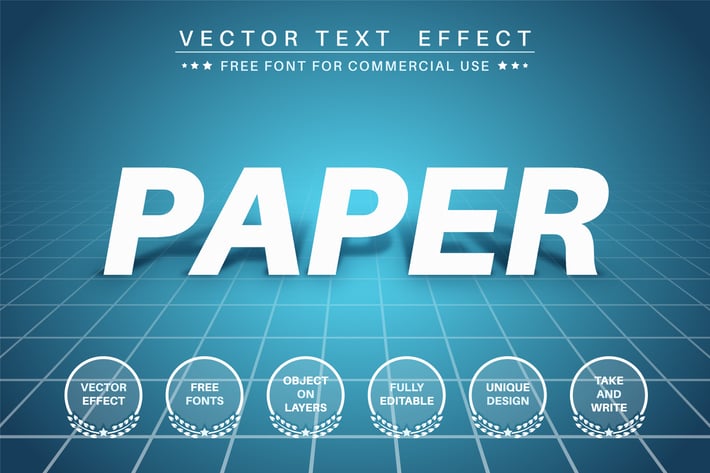
Paper stand - editable text effect, font style
Hello! I'm happy to introduce my new text effect "Paper with shadow". Just write your word and the effect will apply! Be as creative as you like to be in expressing yourself using this unique “Paper with shadow”. Effect is perfect for any project that needs a unique handy touch whatever else your imagination leads you to!